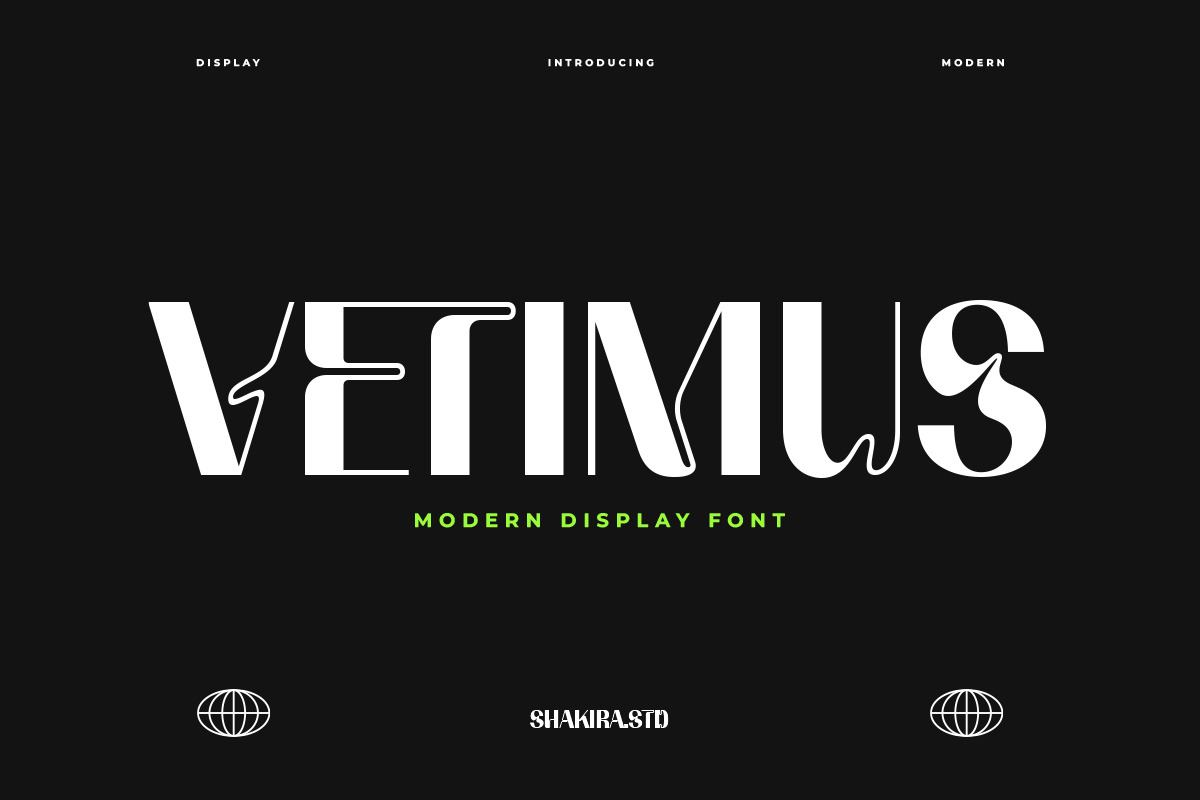
Vetimus - Modern Display Font Free Download is a sleek and contemporary typeface designed for high-impact, creative projects. With its bold, geometric letterforms and modern design, this font is perfect for creating striking headlines, logos, posters, social media graphics, and any design that requires a strong visual presence.
Its clean and dynamic style ensures readability while maintaining a fresh, innovative look, making it suitable for everything from tech-related branding to creative advertising. Whether you're designing a modern website, a product label, or promotional materials, Vetimus adds an eye-catching touch to your typography.